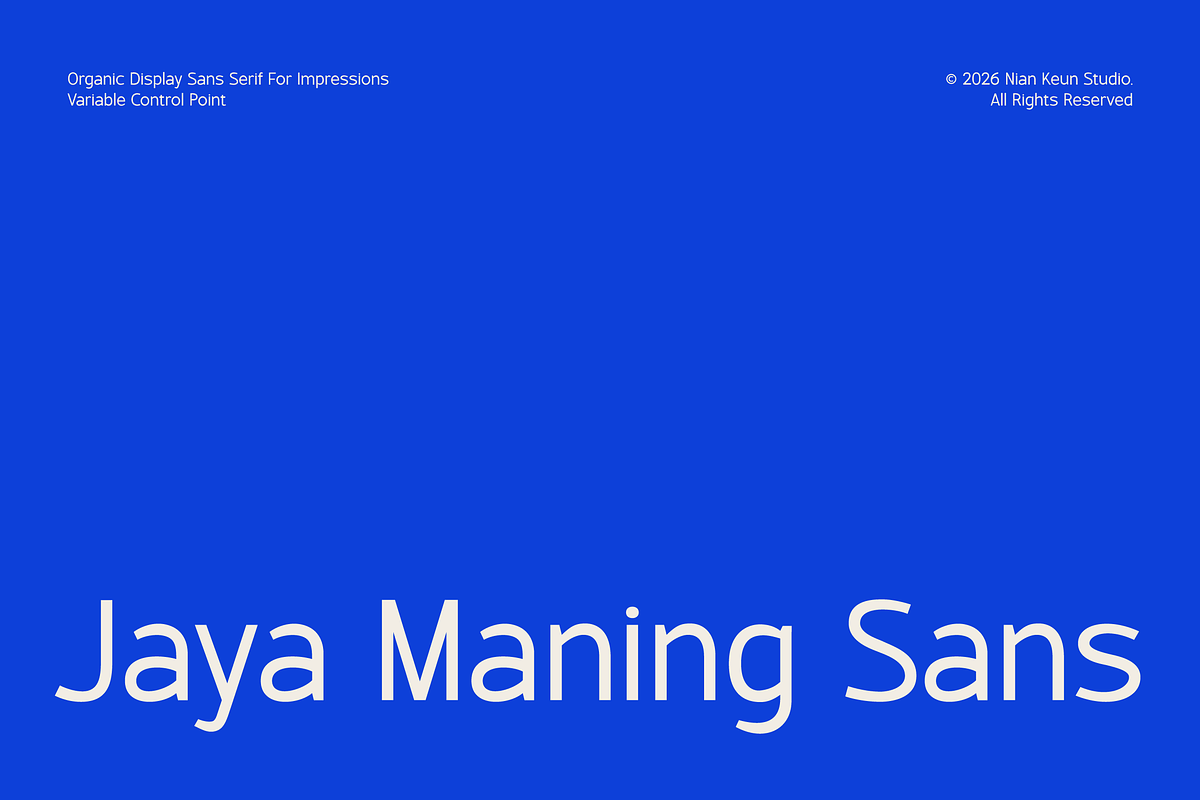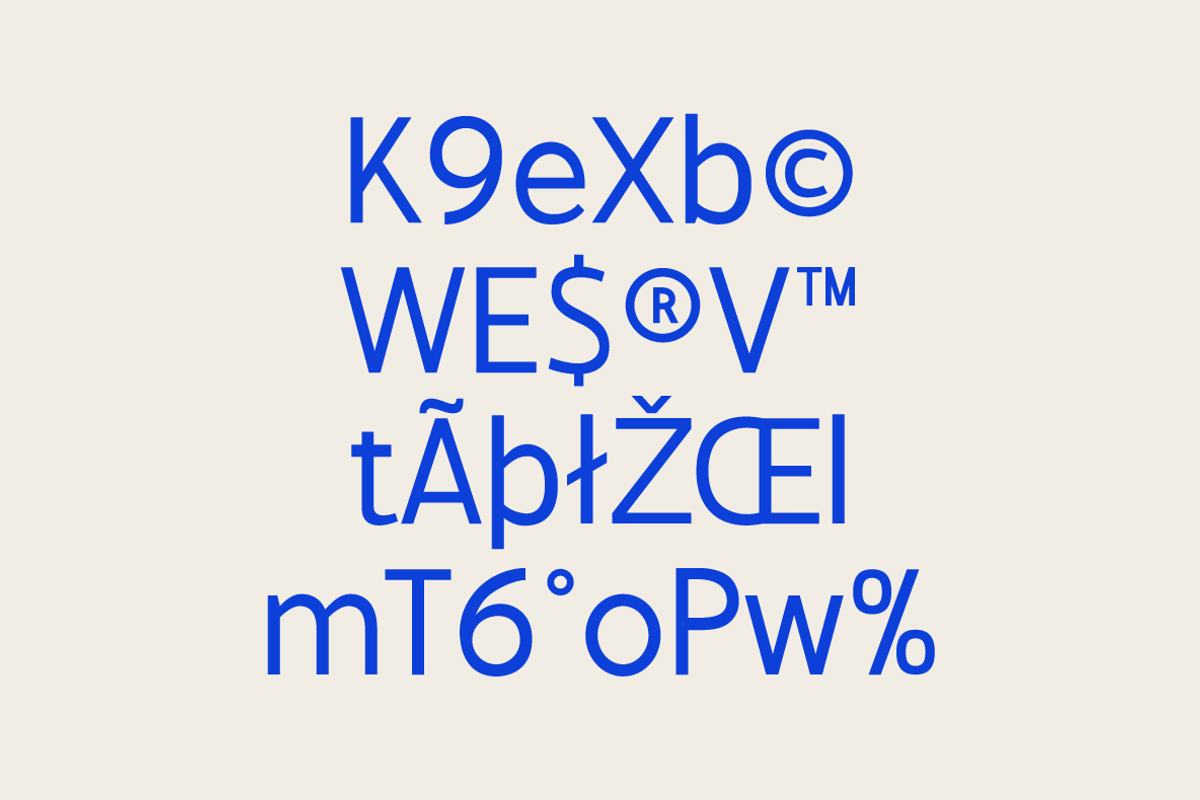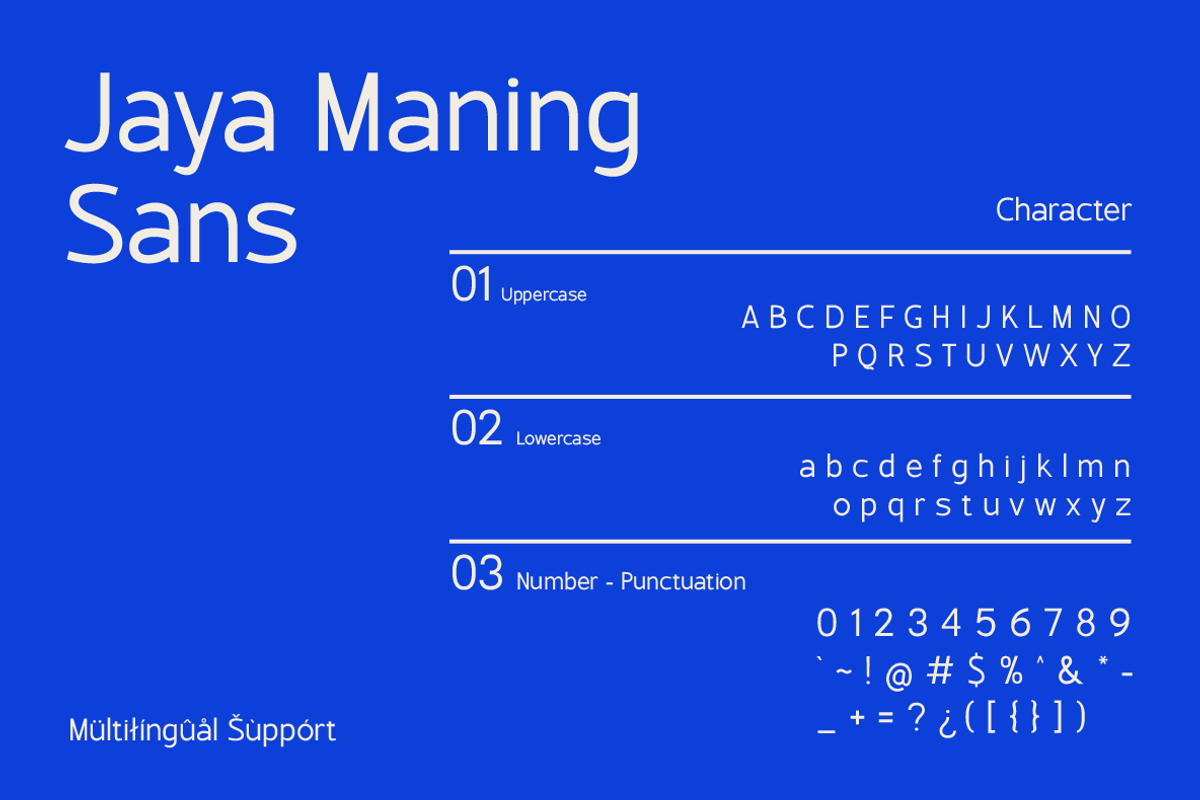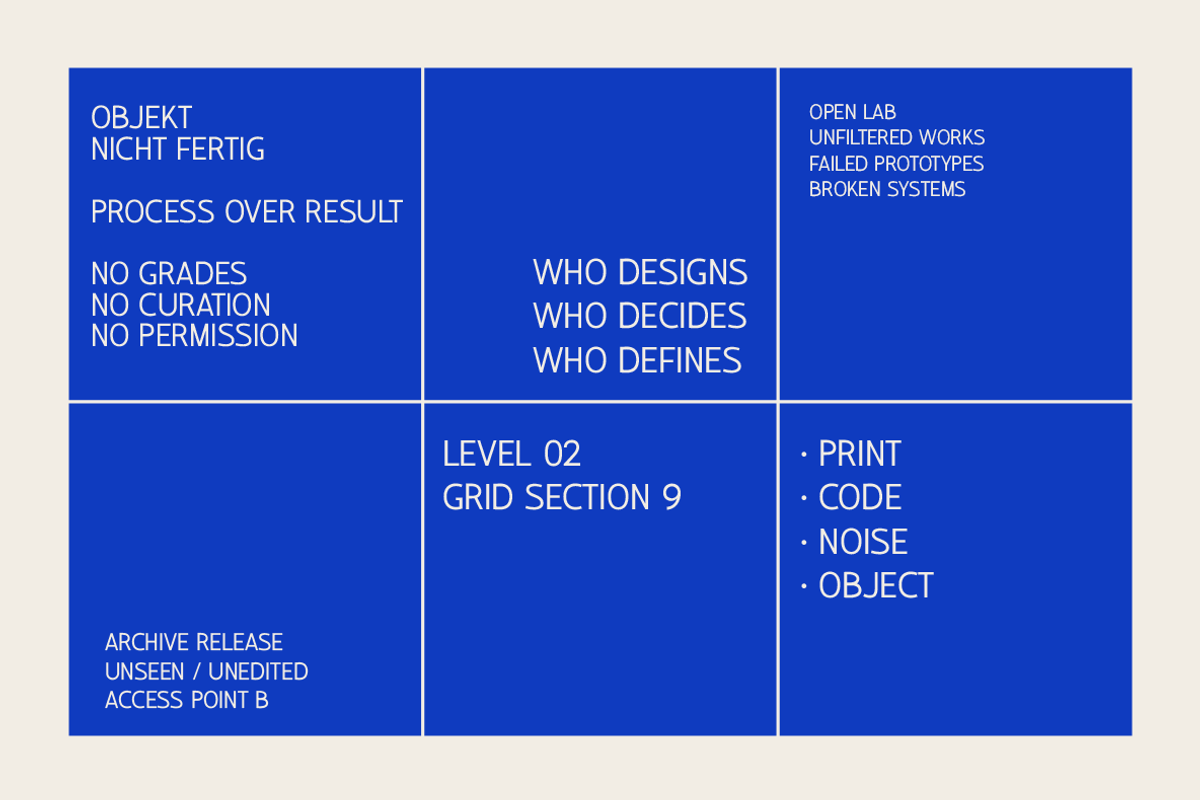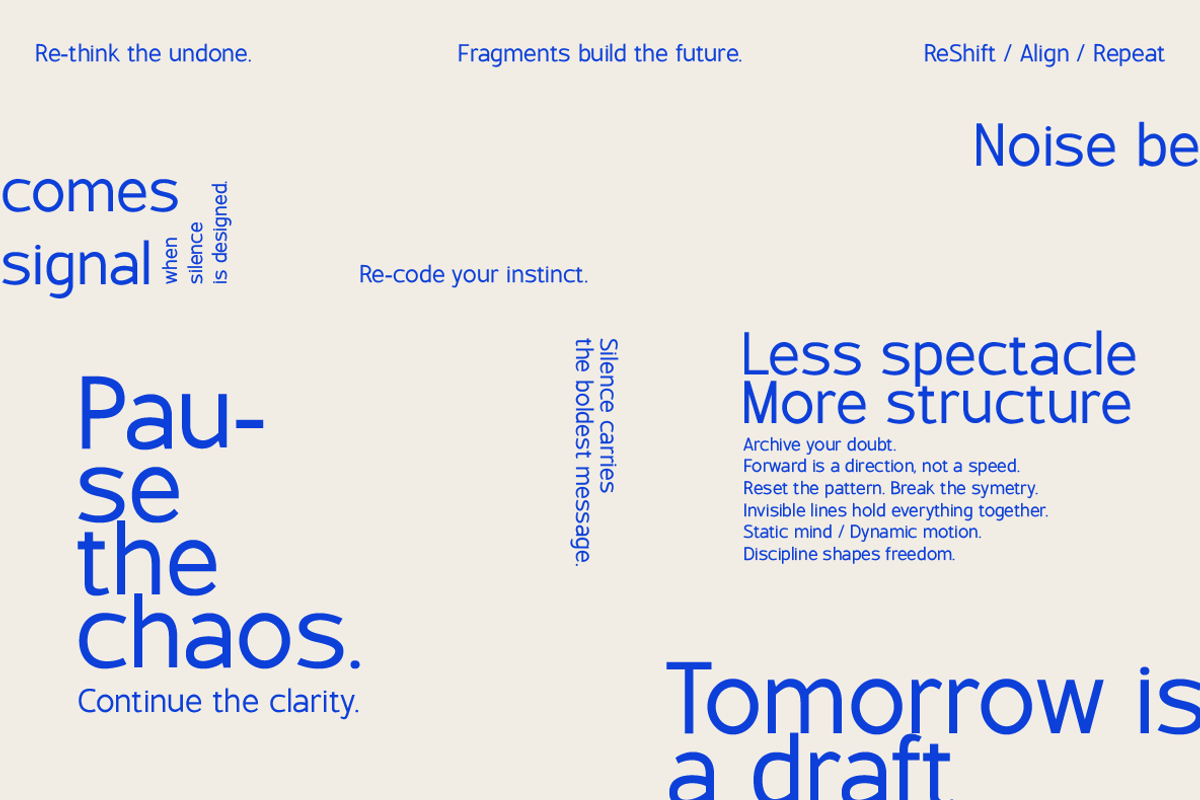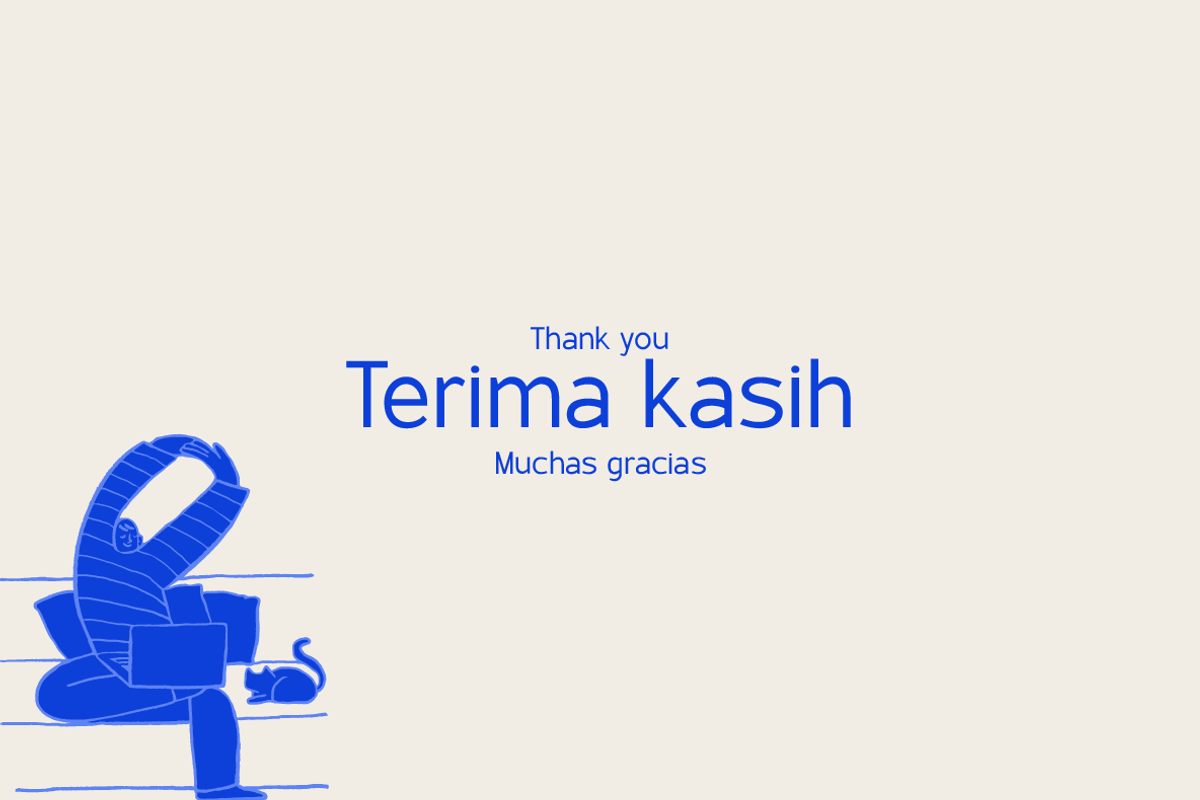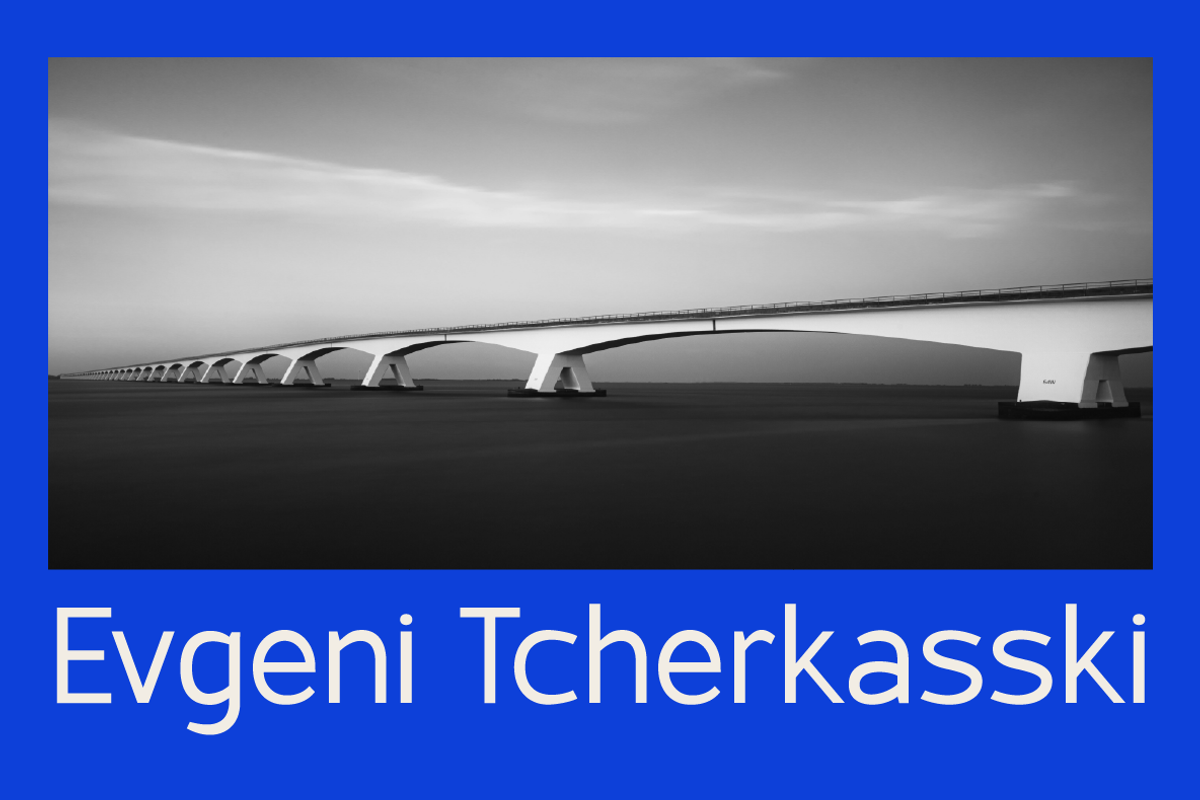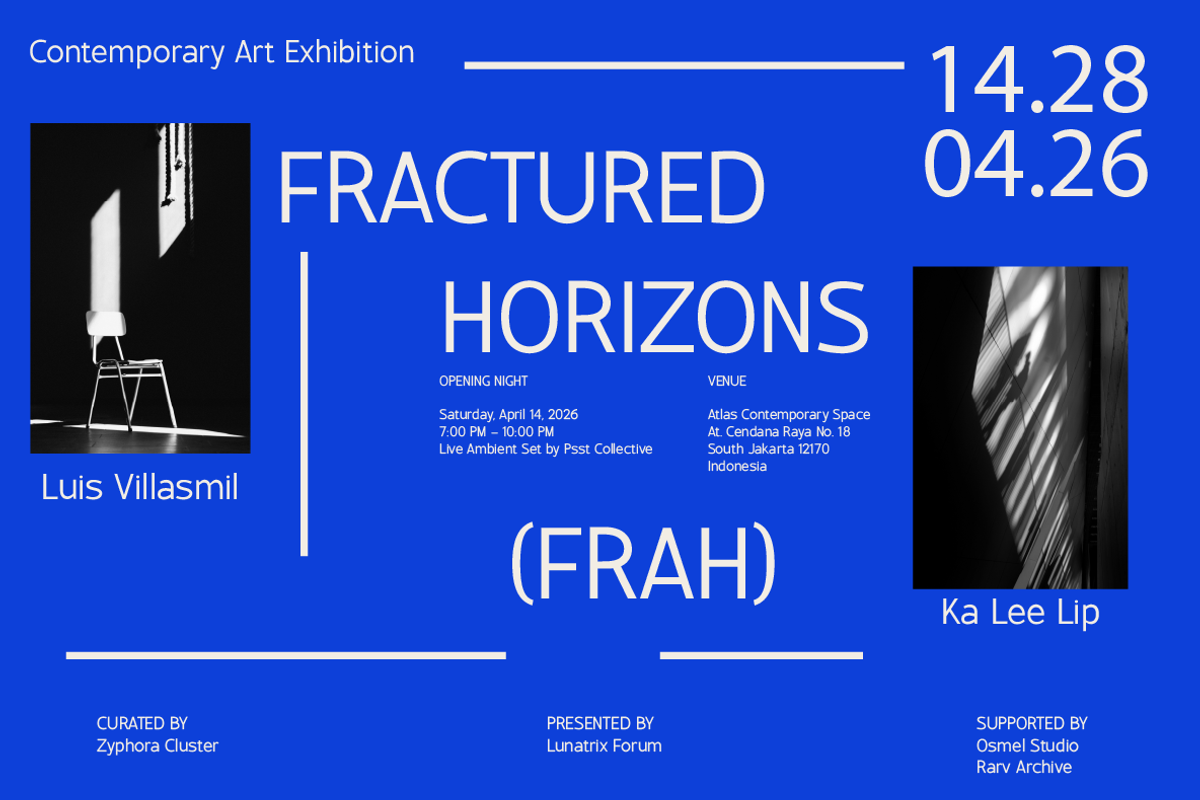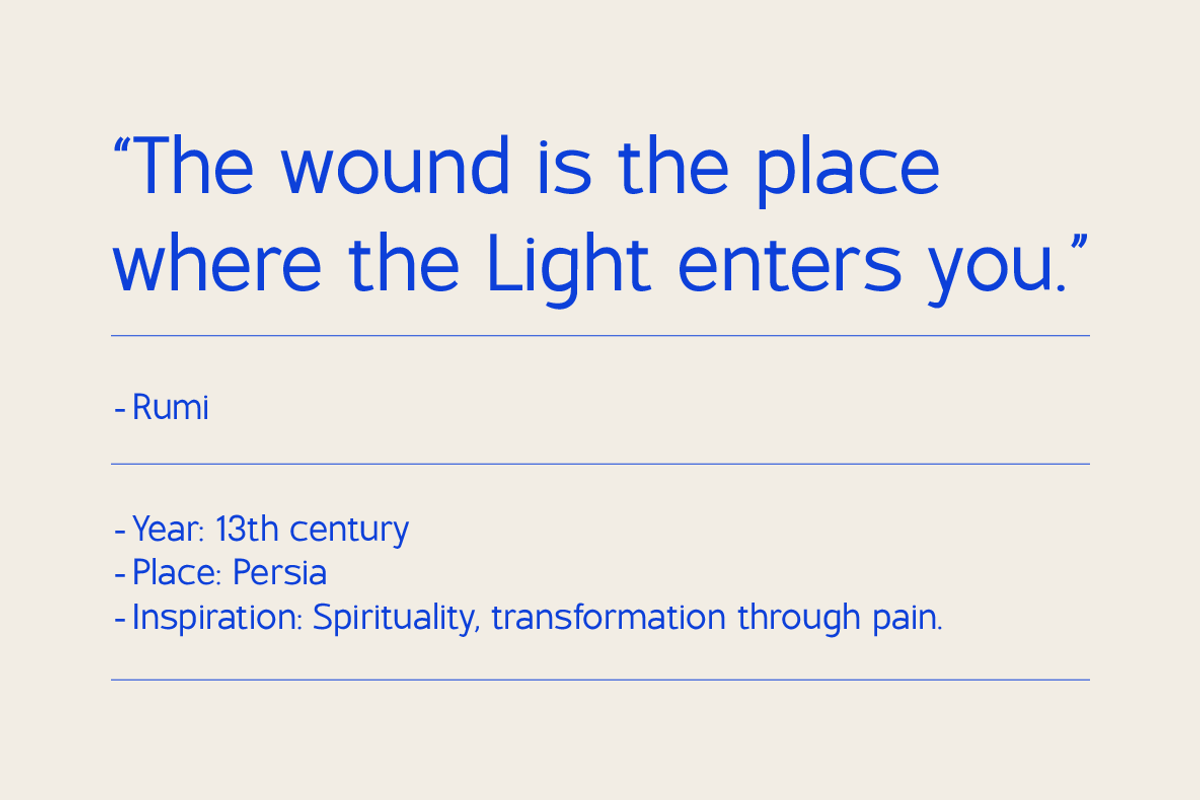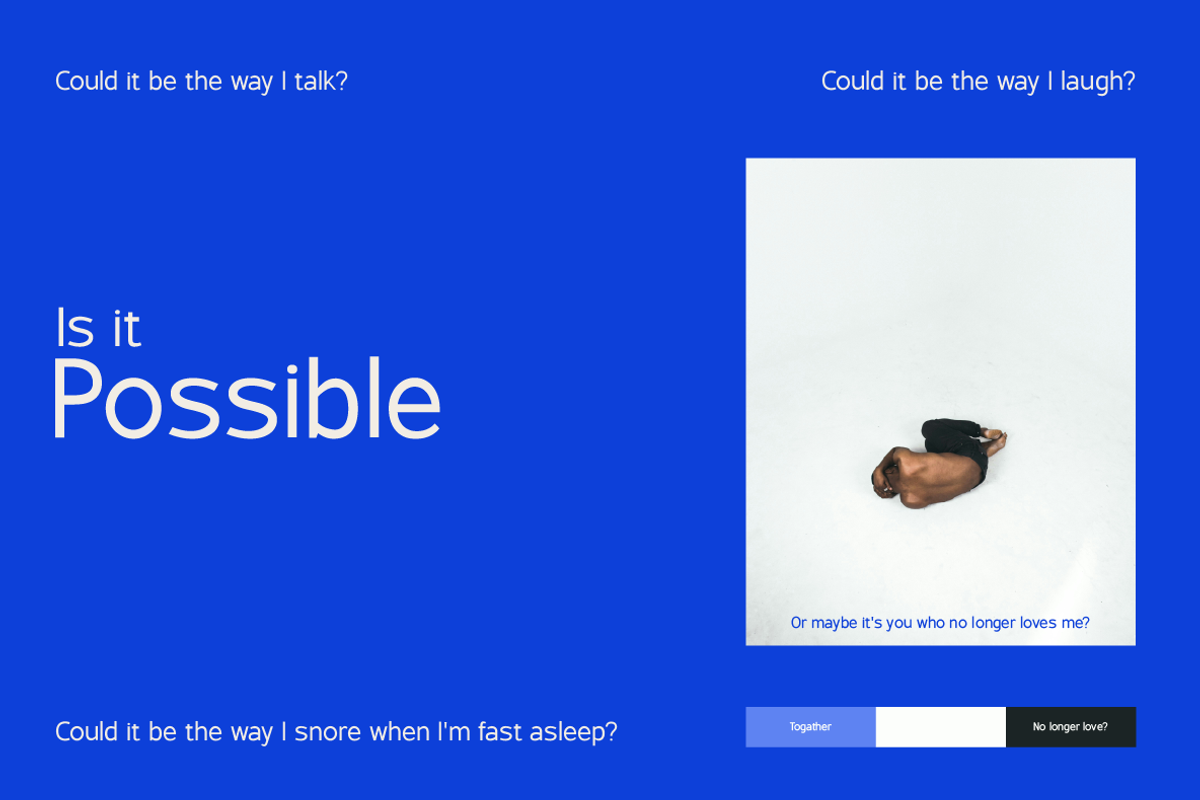
Jaya Maning Sans
Jaya Maning Sans is an organic modern sans serif display font crafted to deliver a clean, bold, and expressive visual presence across a wide range of design applications. Built with carefully balanced proportions and subtly softened edges, this typeface combines contemporary structure with a warm, humanist character. The smooth yet confident letterforms create a strong typographic voice that feels both professional and approachable, making it highly adaptable for creative exploration as well as commercial use.
Designed with clarity and impact in mind, Jaya Maning Sans performs exceptionally well at medium to large sizes, where its refined curves and confident strokes truly stand out. Whether used for branding systems, striking headlines, posters, logos, editorial layouts, UI/UX interfaces, or dynamic digital content, this font ensures readability while maintaining a distinctive personality. Its organic flow adds visual rhythm, while its modern construction keeps every composition looking sharp and current.
Jaya Maning Sans is a reliable choice for designers who seek a versatile display typeface that balances minimalism with expressive detail. It seamlessly fits both bold statement designs and clean, sophisticated layouts.
- Branding & logo design
- Posters & headlines
- Websites & UI design
- Editorial & magazines
- Social media content
- Digital ads & presentations